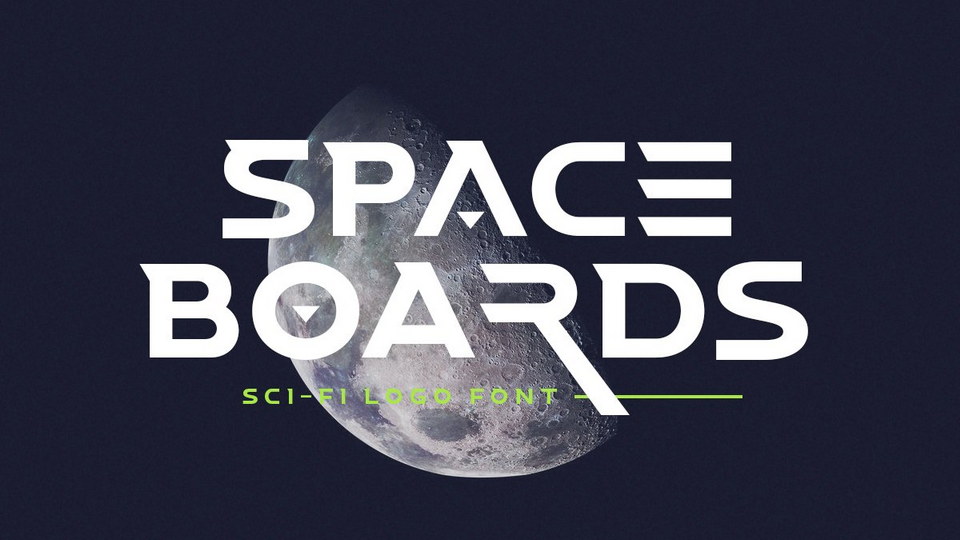
Space Boards Font
Space Boards is a display font that looks futuristic and modern. You can use this font for any purpose, especially to make hi-tech logotype. This font is also suitable for science-fiction movie poster.